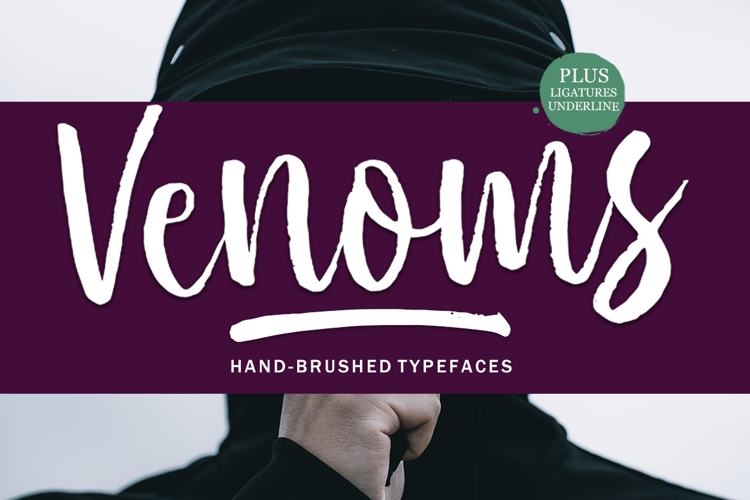
venom
Venoms
Venoms Underlines
The “Venoms” font is a bold, hand-brushed typeface that exudes a raw and energetic character, perfect for designs that need a striking and expressive touch. Venoms’ uneven strokes and natural brush texture give it an authentic, handcrafted feel, while the dynamic flow of the letters adds a sense of movement and personality. With additional ligatures and an underline feature, this font is ideal for branding, posters, social media graphics, and any project seeking a modern yet artistic edge.